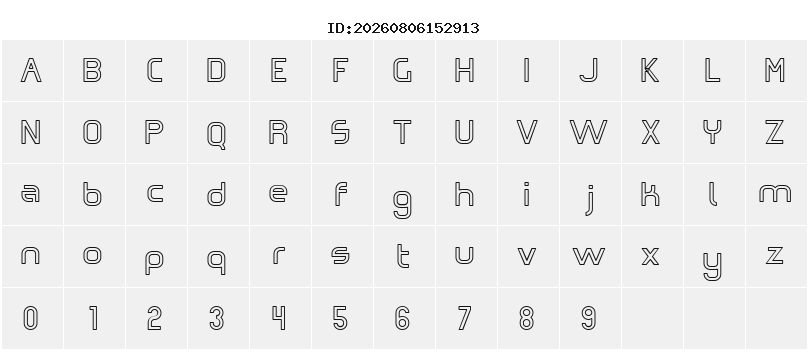
• Font Name: Omicron Zeta Hollow
About Omicron Zeta Hollow.ttf
Omicron Zeta Hollow.ttf is a modern, elegant sans-serif font designed for ultimate readability and visual harmony. Perfect for branding, headlines, web design, and print materials.